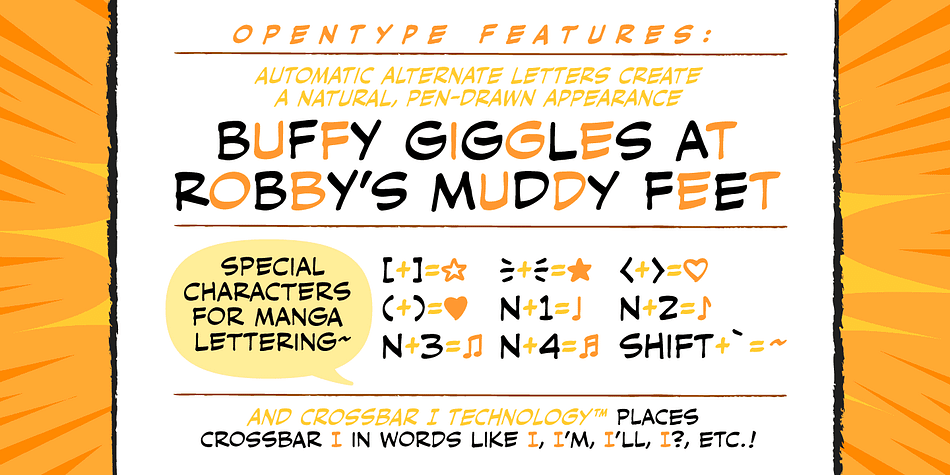
HUSH HUSH
Designed by John Roshell and Richard Starkings, Hush Hush is a comic font family. This typeface has four styles and was published by Comicraft.
If you thought you heard someone callin’ your name just now, you might have caught the firm but soft spoken tones of Comicraft’s classy balloon lettering font, HushHush. Created in the style of the newspaper strips of the 30s and 40s, HushHush captures the slick movements of the skilled hand letterers of that era. Gracing the pages of Jeph Loeb and Jim Lee’s chart-topping BATMAN storyline—which by a staggering coincidence was also called “Hush”—these characters have brought to life the words of Two Face, The Joker, Scarecrow, Catwoman, Batman and Robin—from every whisper to every scream.
March 2021 – Remastered with additional European accents & Cyrillics, improved spacing & kerning, Manga characters & Crossbar I Technology™
Four weights with alternate uppercase alphabets • Languages: Western & Central Europe, Cyrillic • Features: Crossbar I Technology™